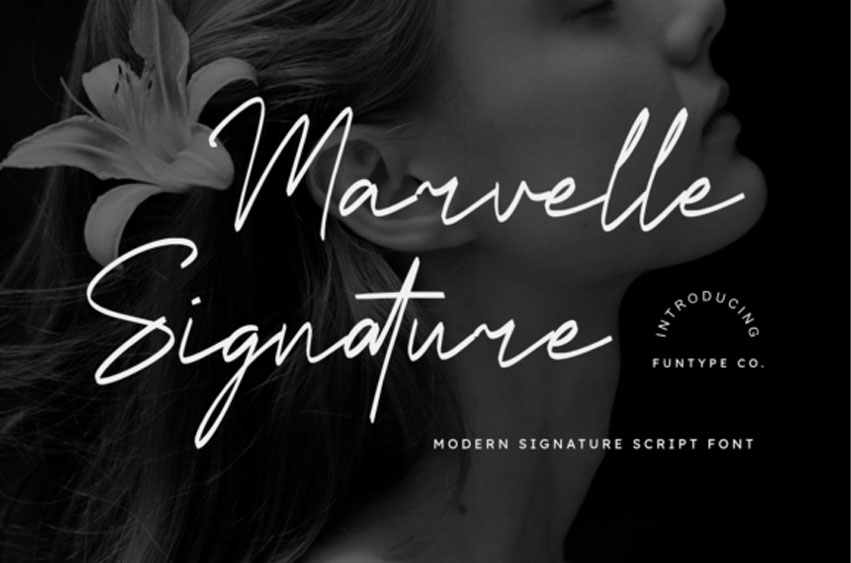
Marvelle Signature Font is a beautiful and bold modern signature script font designed for impactful and personal typography. With its refined structure and expressive natural flow, this font is perfect for chic branding, photography watermarks, luxury logos, and modern fashion designs.
Its confident and sophisticated design gives your visuals a striking, professional, and artistic look.